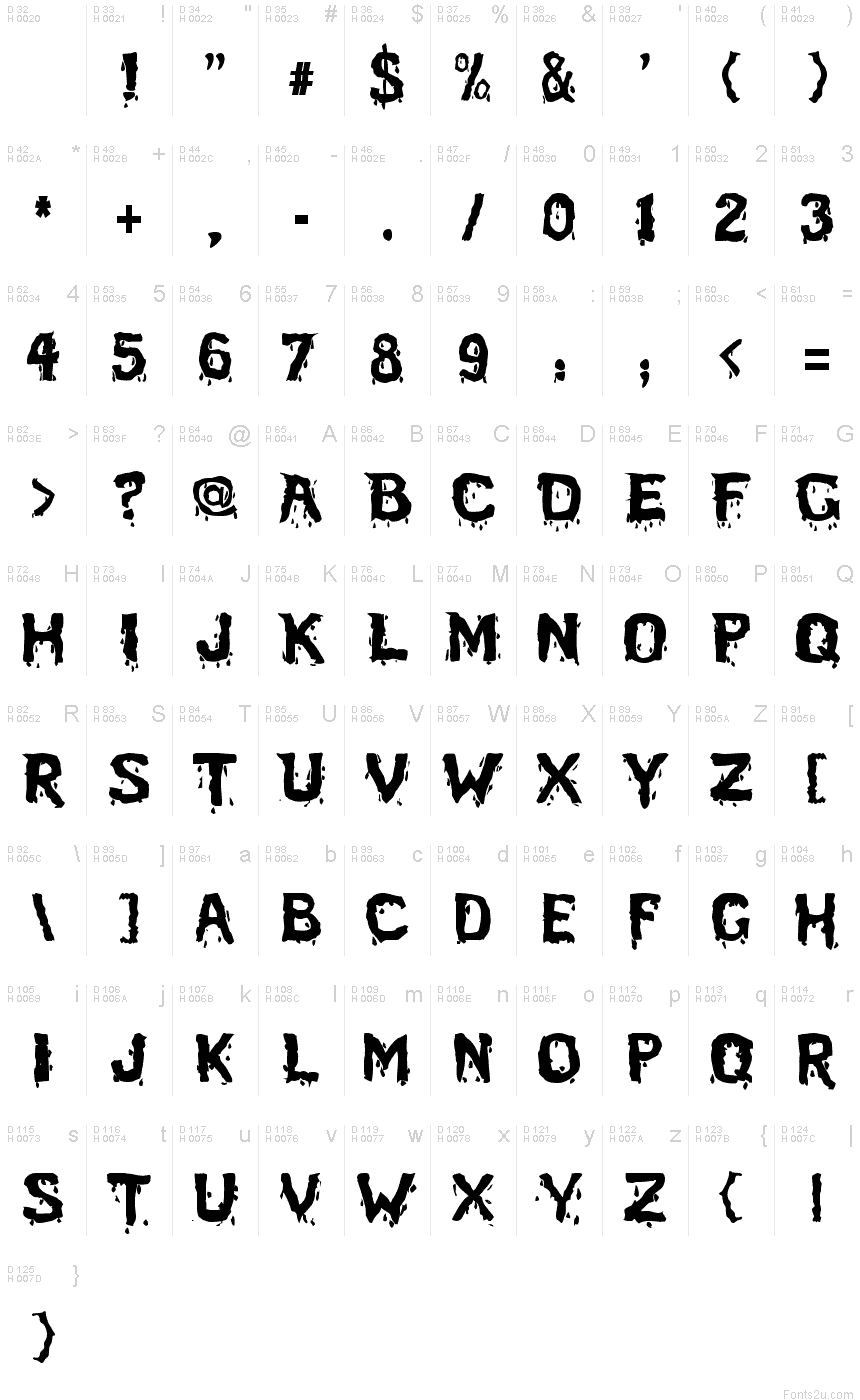
BloodFeast
BloodFeast font by B.O. Nelson is a free distorted scary display typeface. Heavy black shapes sag and drip like wet ink, with ragged edges and splatters that feel straight out of a grindhouse title card. The letters cram together in a dense, claustrophobic mass, so every word looks like it’s been hastily smeared across a wall just before the lights go out.
Using BloodFeast, headlines instantly scream horror-no extra effects needed. This free font shines on Halloween posters, haunted house signage, B‑movie cover art, slasher game titles, escape room branding, and creepy YouTube thumbnails. Keep it large and bold for maximum impact, then pair it with a plain, clean sans serif for body text so the gore-soaked lettering stays loud and legible.